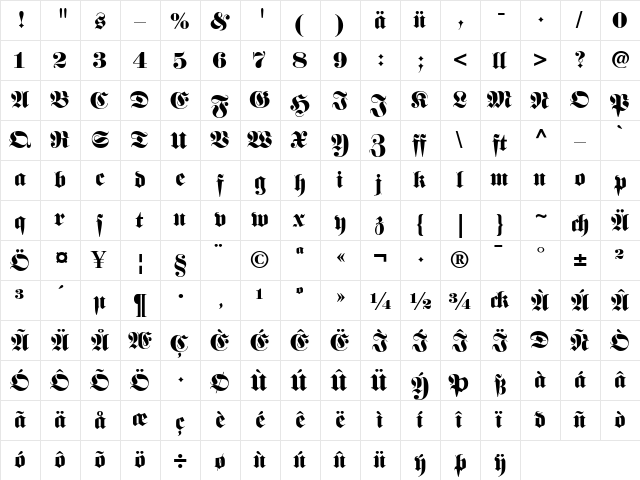
FetteFrakturDfr Roman
Design Context for FetteFrakturDfr Typeface
FetteFrakturDfr channels the dramatic heritage of Fraktur and Gothic scripts, bringing a sense of historical gravitas to any design.
A natural fit for music packaging, gothic editorial design, and any project that needs historical weight.
Font Pairing: Pair with a clean neutral sans-serif for body copy to let FetteFrakturDfr's character lead without overwhelming the composition.
Pro Tip: Reserve FetteFrakturDfr for display and logo use — pair it with a clean sans-serif for body copy to prevent the composition from feeling oppressive.